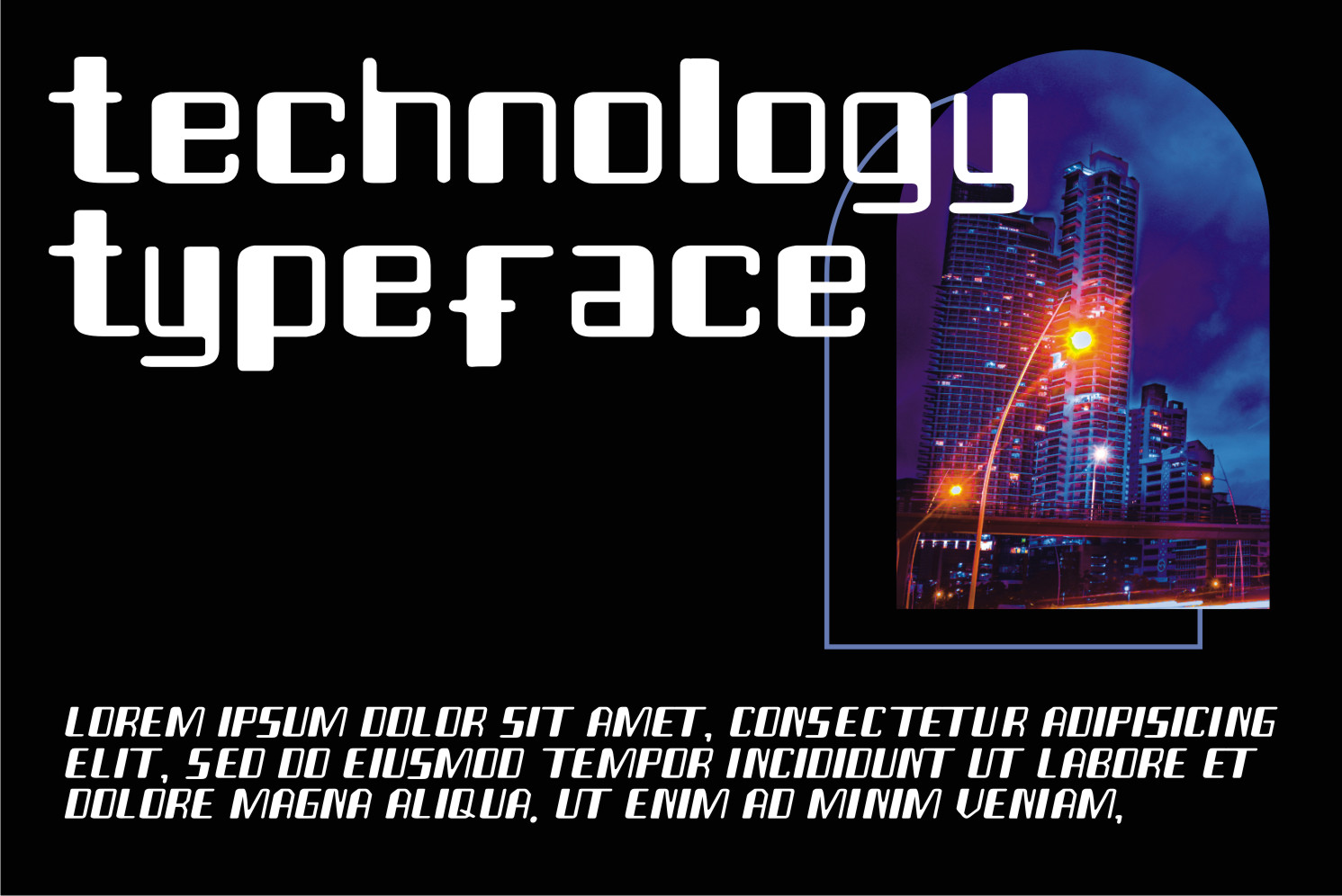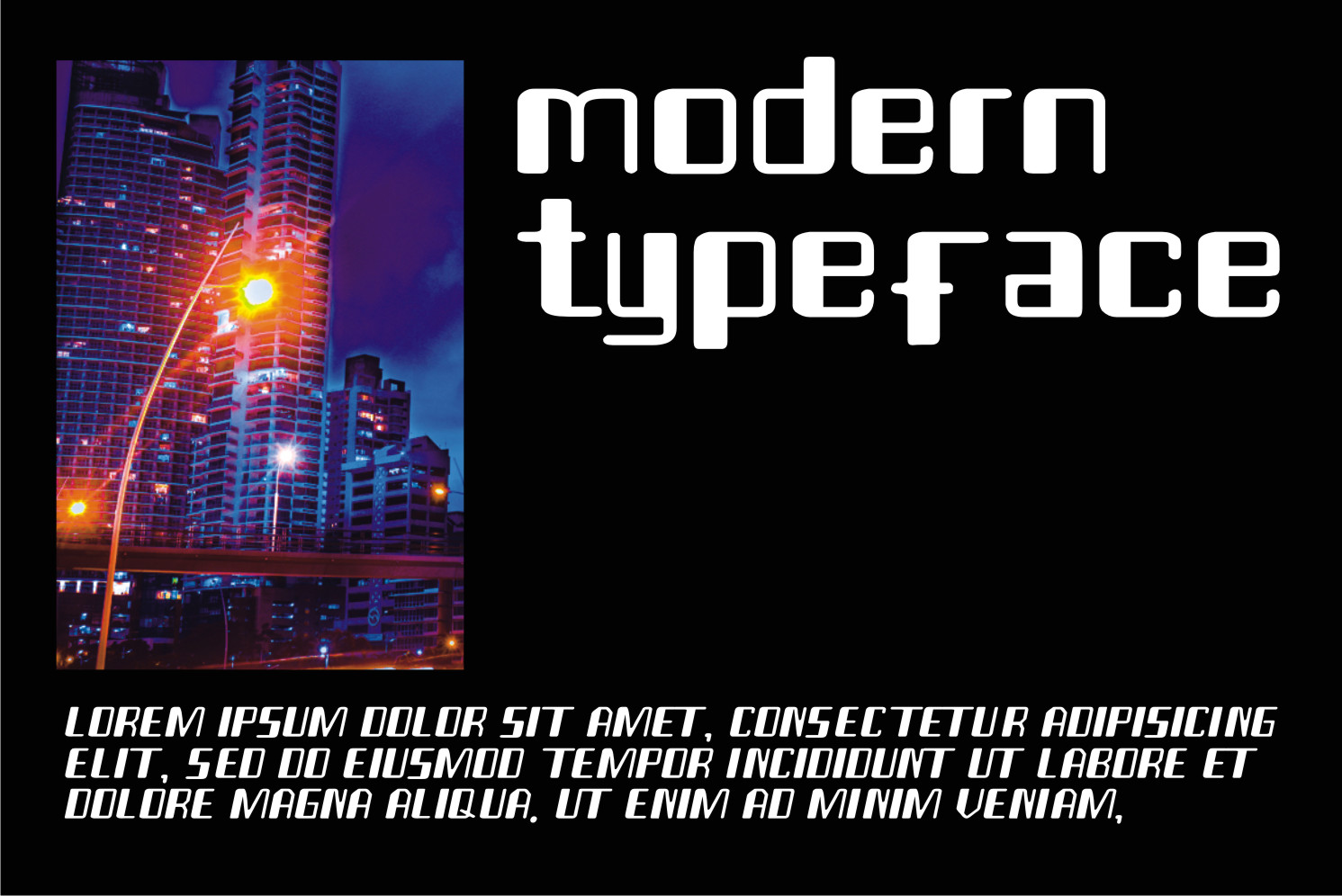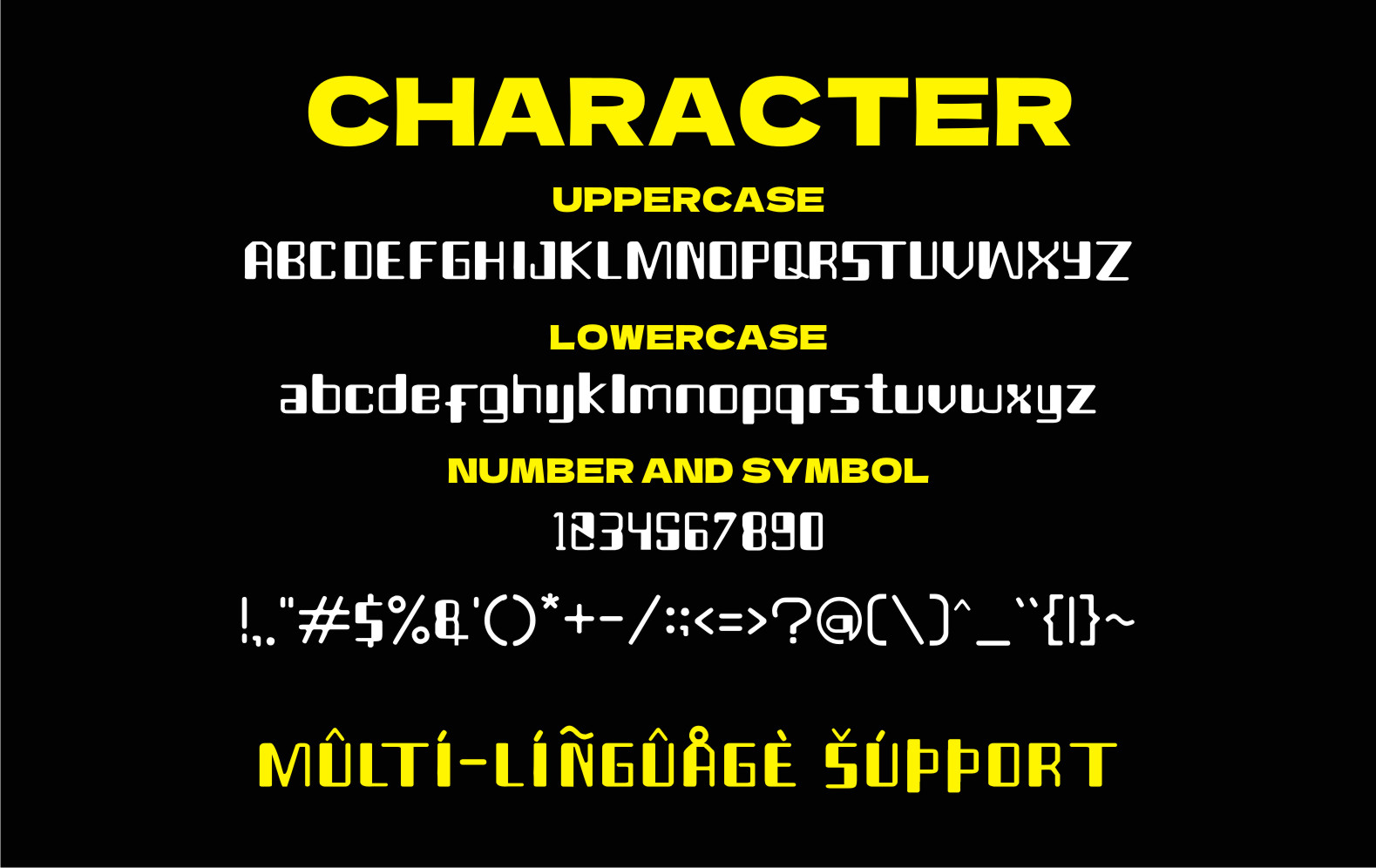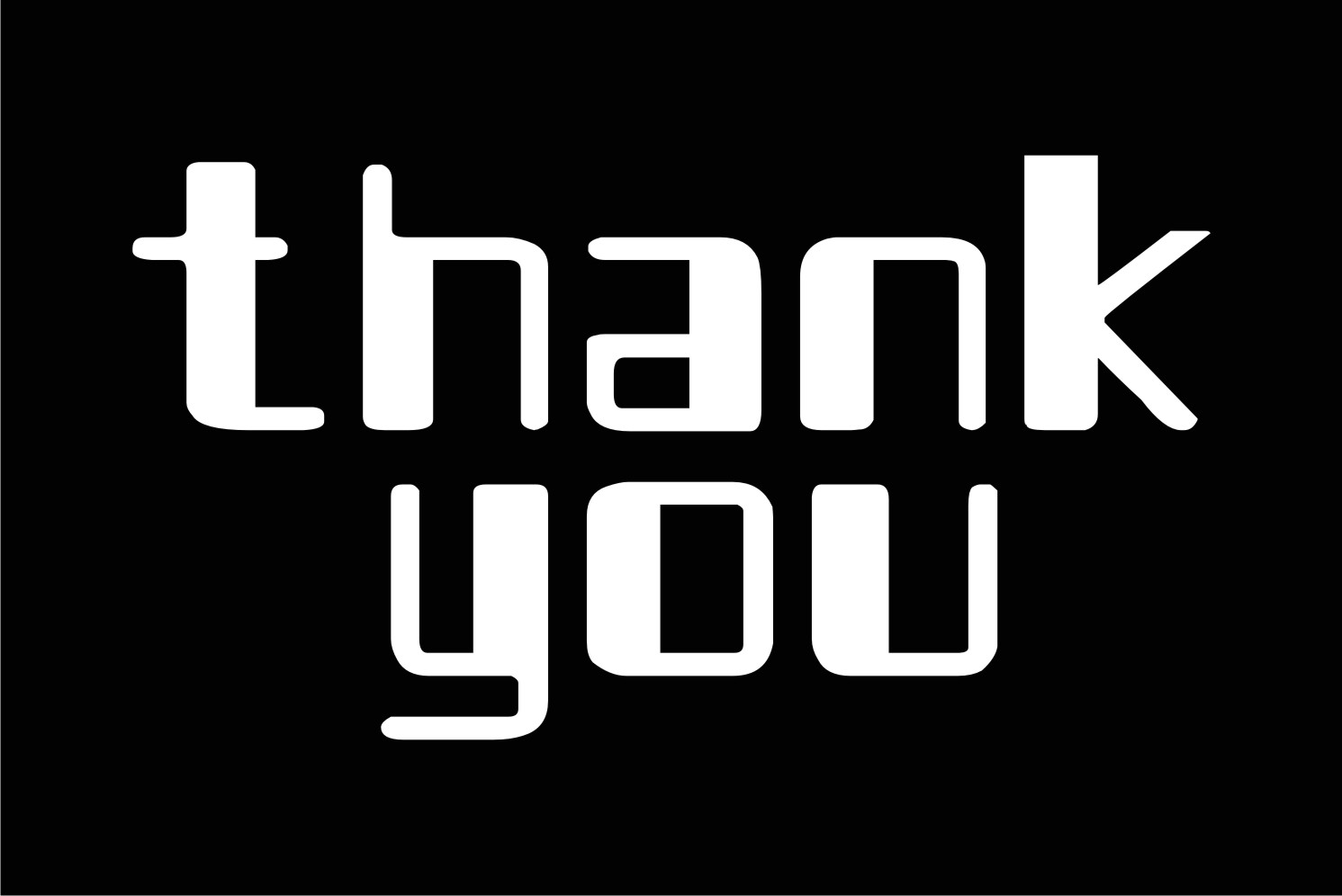
Tehliner Display Font
It’s a cool, robotic display font. It will look stunning on any food menu, poster, flyer or print. Use this font for your designs and explore its endless possibilities.